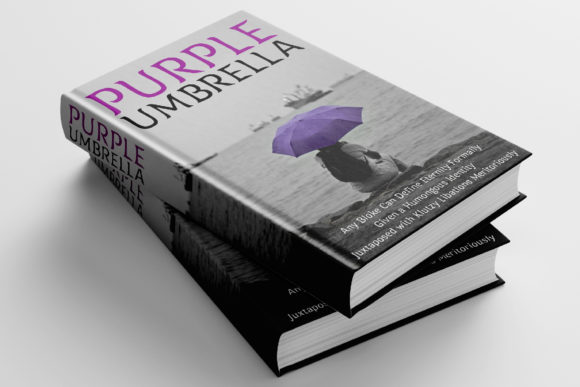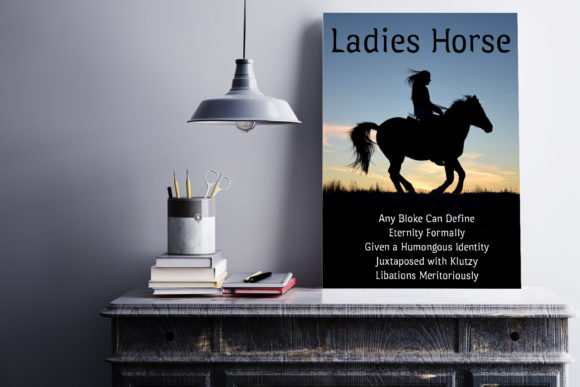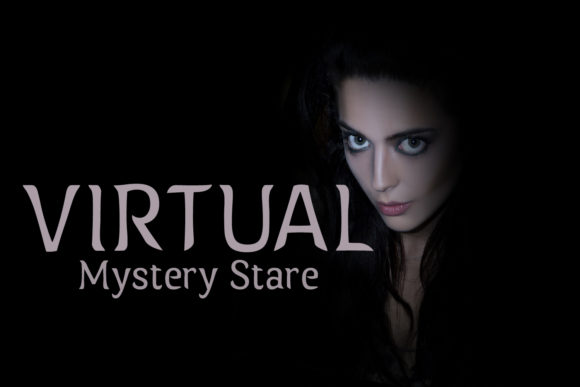
Discover the Timeless Elegance of Angelie Font
Have you ever found yourself stuck in front of a blank page, desperately trying to bring your creative vision to life? It’s a familiar feeling for many designers, and it’s where the perfect font can be the game-changer you need.
Enter Angelie Font, a sophisticated and refined serif font that effortlessly elevates your designs. With its clean lines and classic charm, Angelie Font is the perfect companion for a wide range of creative projects, from elegant invitations to sophisticated publications.
As a designer, you’ll appreciate the versatility of Angelie Font, which can be tailored to suit any style or tone. Its elegant feel makes it an excellent choice for high-end designs, while its adaptability ensures it won’t weigh down more minimalist projects. Whether you’re a seasoned pro or just starting out, Angelie Font is an invaluable addition to your design toolkit.
Angelie Font Key Features
- Font Family: Angelie Font is a sans-serif font family designed by Yanone.
- Character Count: The font family includes over 1000 characters, including Latin, Cyrillic, and Greek alphabets.
- Size: The font family includes a range of weights from Thin (100) to ExtraBold (800).
- Unique Characteristics: Angelie Font features a unique blend of modern and geometric shapes, making it suitable for modern digital designs and branding.
Review of Angelie Font
As a designer, I’ve had the chance to work with Angelie Font, and I must say it’s been a mixed bag. ✨ One thing that really stands out is its elegant and refined aesthetic. The font’s slender lines and subtle curves evoke a sense of sophistication and luxury. It’s perfect for high-end branding, fashion, and lifestyle projects.
- ✨ Elegant and refined aesthetic
- ✨ Suitable for high-end branding, fashion, and lifestyle projects
- ✨ Excellent legibility in larger font sizes
However, there are some limitations to consider ⚠️. The font’s thin lines can make it challenging to read in smaller font sizes or when used in combination with bold or italic styles. Additionally, the font’s weight range is somewhat limited, which may not be ideal for projects that require a wide range of typography.
- ⚠️ Challenging legibility in smaller font sizes or with bold/italic styles
- ⚠️ Limited weight range
- ⚠️ May not be suitable for projects with complex typography
Overall, I’d say Angelie Font is a solid choice for designers who need a high-end, elegant font for their projects. However, it’s essential to be aware of its limitations and use it judiciously.
Some tips for getting the most out of Angelie Font include using it for headings and titles, creating custom logos or graphics, and pairing it with other fonts for a unique look. Common use cases include:
– Digital graphics and illustrations
– Print materials and publications
Alternatives to Angelie Font
Angelie Font is a beautiful, elegant script font. However, there are several other alternatives that designers can consider depending on their project requirements.